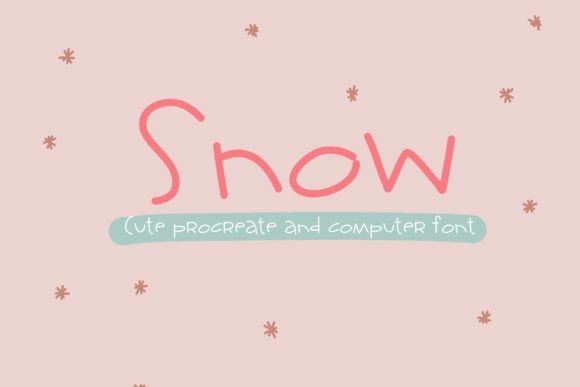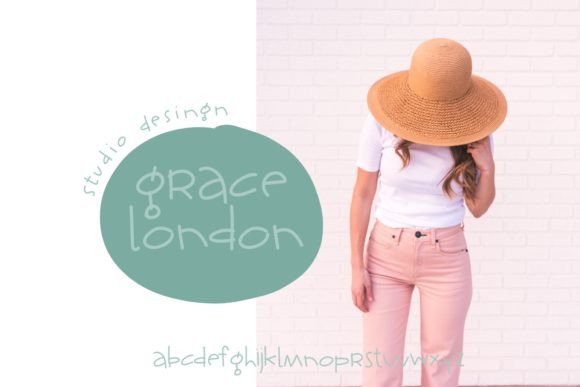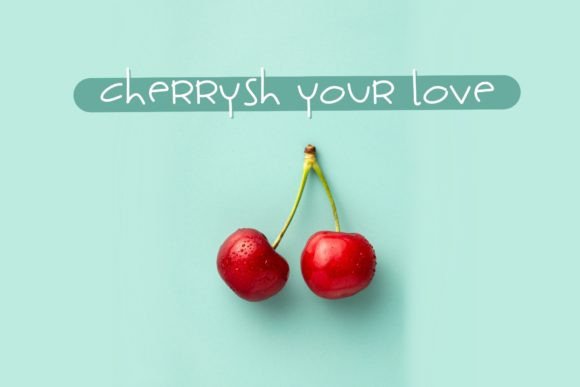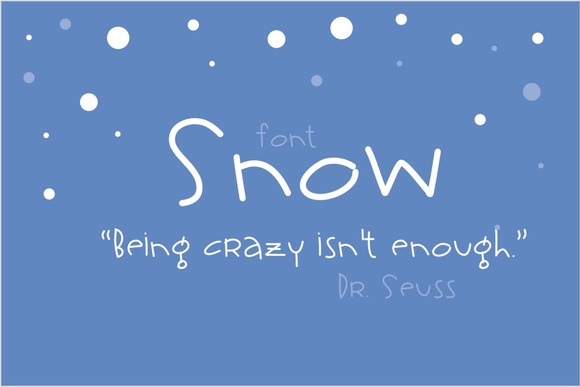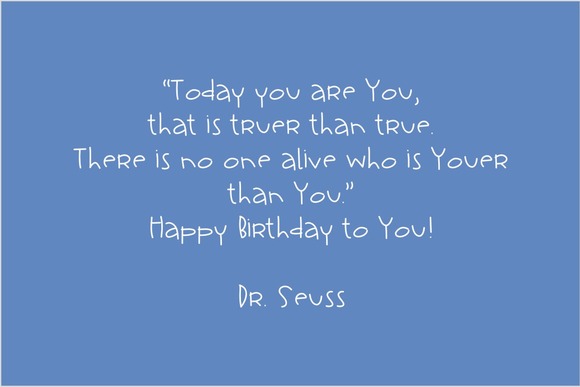
Snow Font
About Snow Font
This easy-to-read font will give your design a playful touch. It can be used for various purposes such as headings, logos, invitations, t-shirt designs, greeting cards, posters, labels, book covers, brochures, and much more!